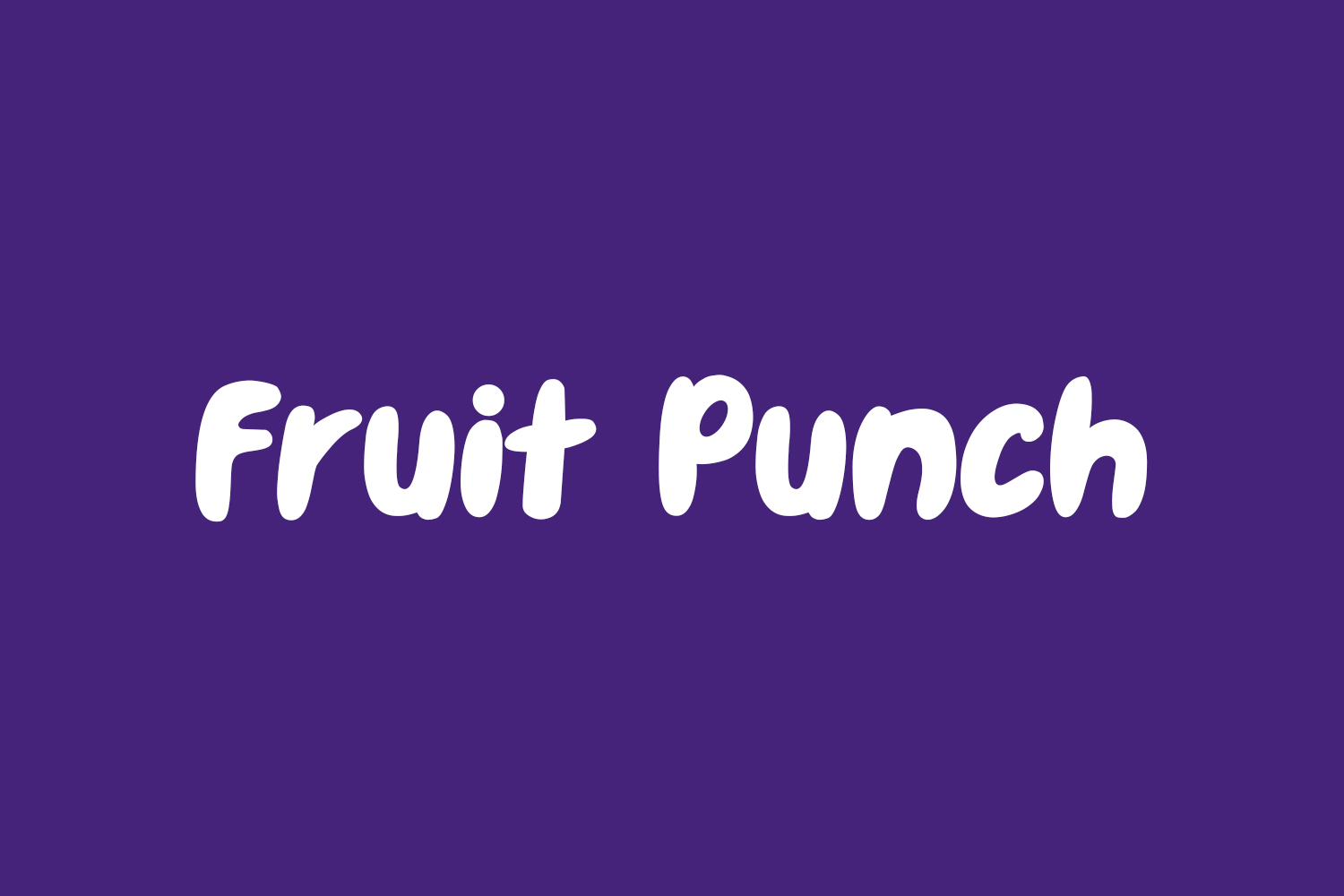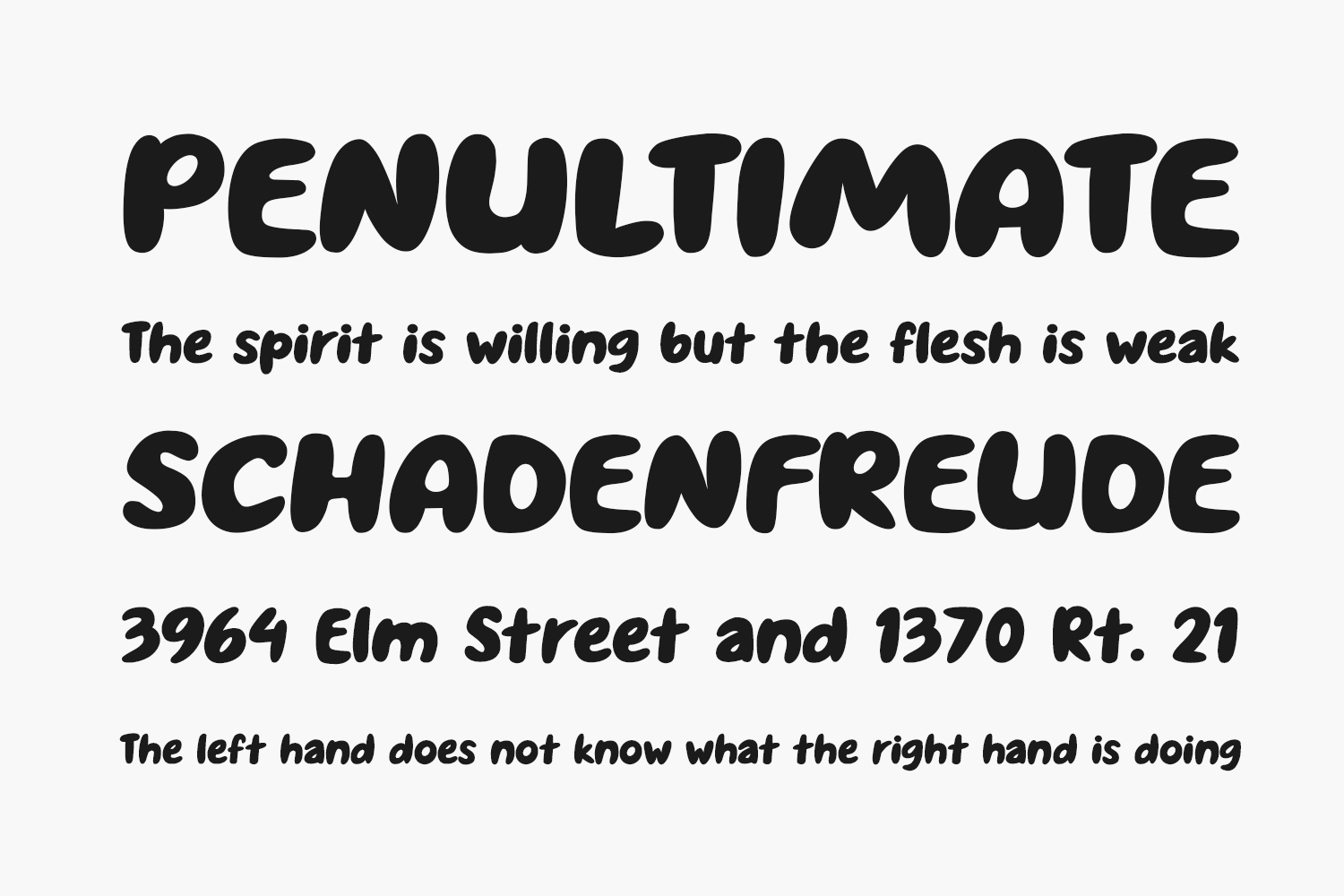
Fruit Punch Free Font is a cool, relaxed and friendly display font. This adaptable font will look great on a variety of design ideas. It will add a fun and friendly touch to each of your projects. Fruit Punch Free Font was designed by Tokopress and is free for personal use only. Please purchase the full version for commercial use.